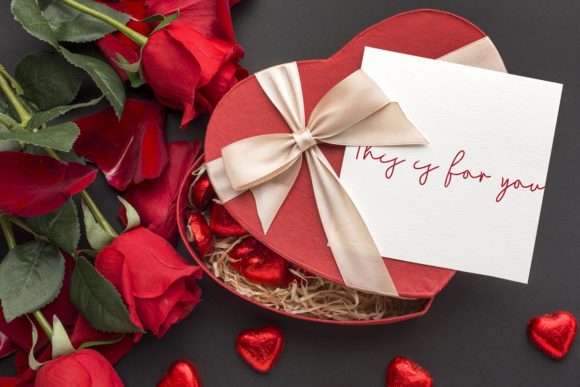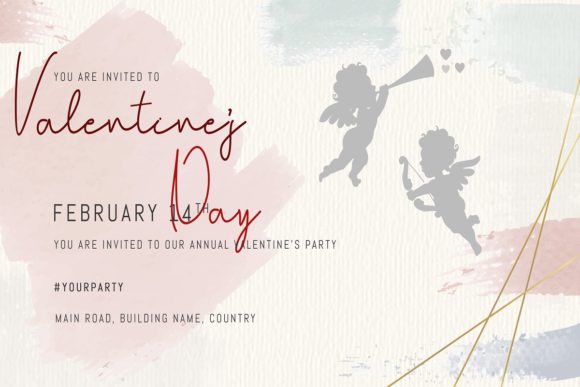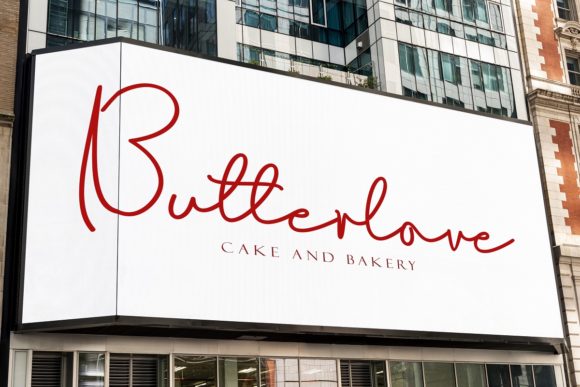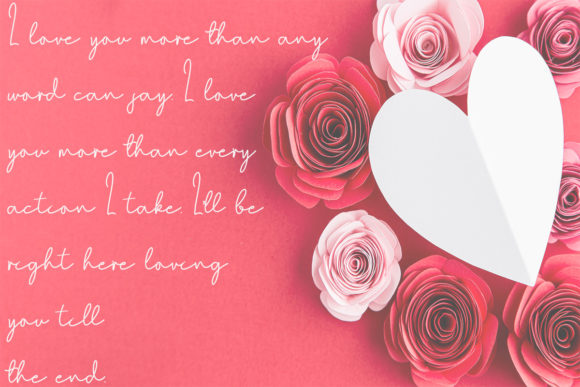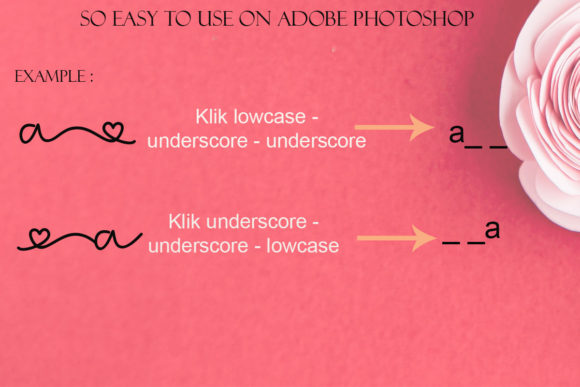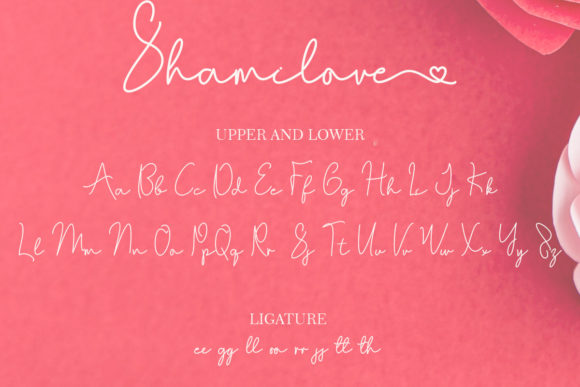
Introduction to Shamilove Font Font
Fonts play a crucial role in design, and the Shamilove Font font is a typeface that brings both character and versatility to any project. Whether you’re working on a branding project, a website, or a print design, the Shamilove Font font offers a unique style that can elevate your work.
Shamilove is a very beautiful and romantic font.
It looks lovely on a variety of designs requiring a personalized style, such as wedding invitations, thank you cards, weddings, greeting cards, logos and so on Shamilove is PUA encoded which means you can access all of the glyphs and swashes with ease.
Key Features of Shamilove Font Font
Why Choose Shamilove Font Font?
The Shamilove Font font is more than just a typeface – it’s a design tool that helps you communicate your message with style and clarity. Its unique character set and versatile design make it suitable for a wide range of applications, from elegant invitations to bold headlines.
With its carefully crafted letterforms and balanced proportions, the Shamilove Font font ensures readability and visual appeal across all mediums.
What makes Shamilove Font font special?
The Shamilove Font font stands out with its unique design, exceptional readability, and versatility across various design applications.